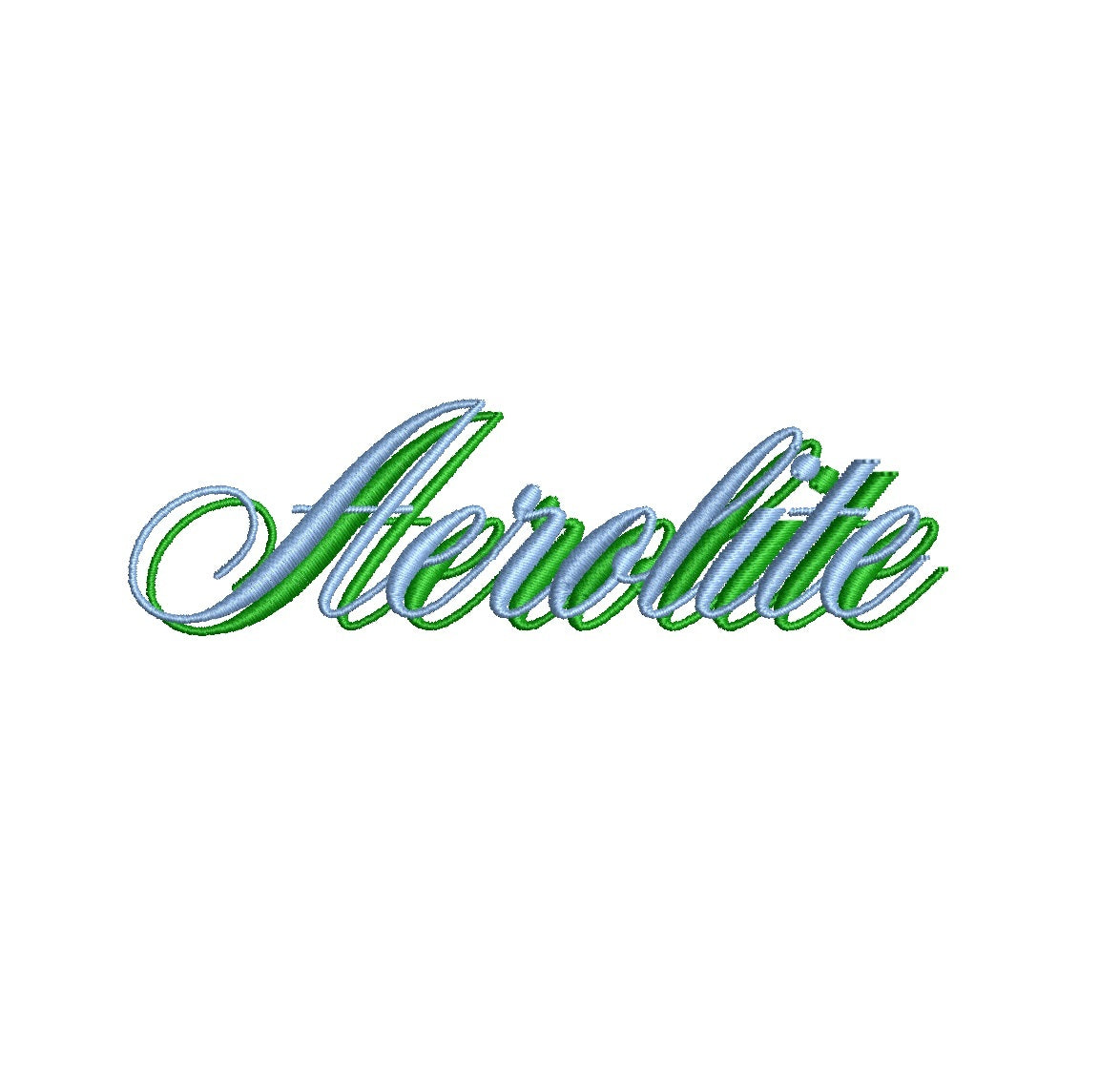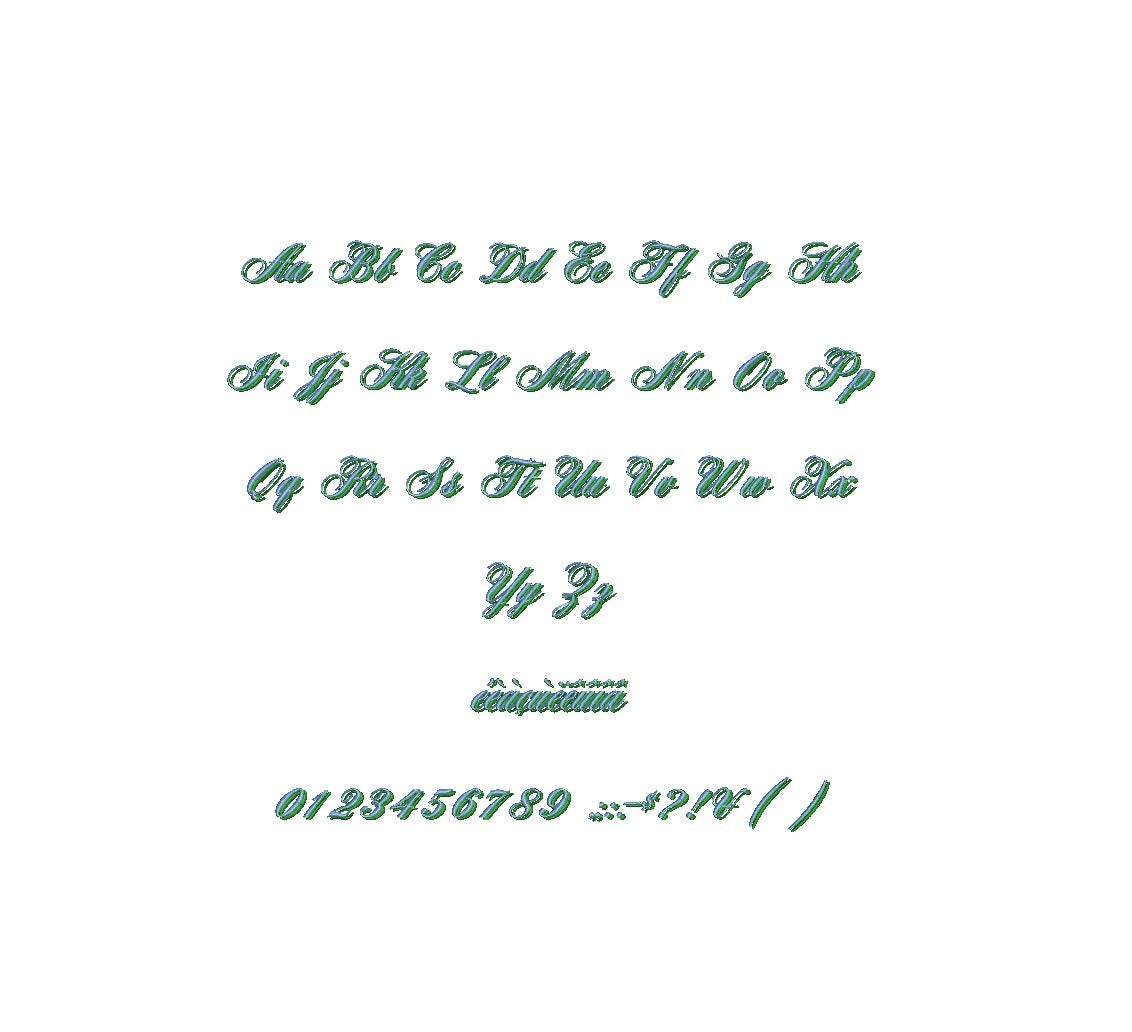
Aerolite Shadow ESA font
Discover the exceptional versatility of Aerolite Shadow ESA font, now fully compatible with Wilcom Studio e4.5.6 and Hatch 3 versions and up. Elevate your embroidery projects with this stunning typeface that seamlessly blends modern aesthetics with timeless charm. Its intricate details and clear lines captivate, making every design stand out. Achieve flawless results and streamline your creative process using this font with industry-leading software. Enhance your embroidery with Aerolite Shadow ESA font's compatibility and create designs that leave a lasting impression. Experience the future of embroidery with this must-have font. Upgrade your projects today!